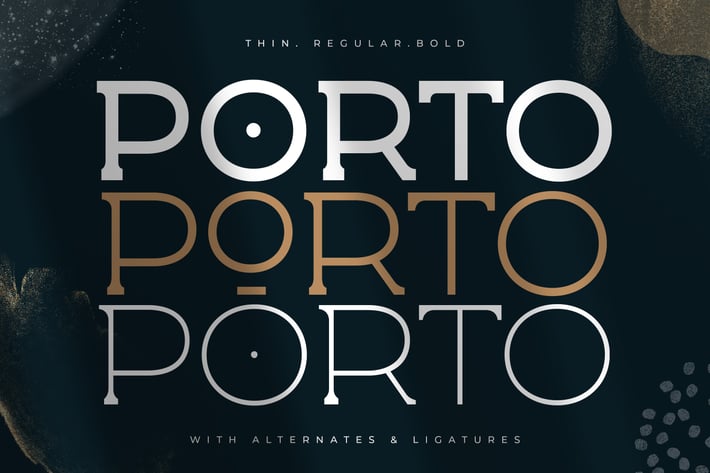
Porto - Display Spur Serif Font
Porto is a spur serif font with a soul of a modern sans-serif , but a heart of a vintage serif typeface. It comes out of the box with lots of ligatures and alternates that are perfect for all kinds of branding, packaging & logo projects.
The font is most suitable for display purposes, but also serves well in situation that require a slightly longer copy (quotes for example) - you can play with the tracking, alternate glyphs and ligatures to get a really unique look.